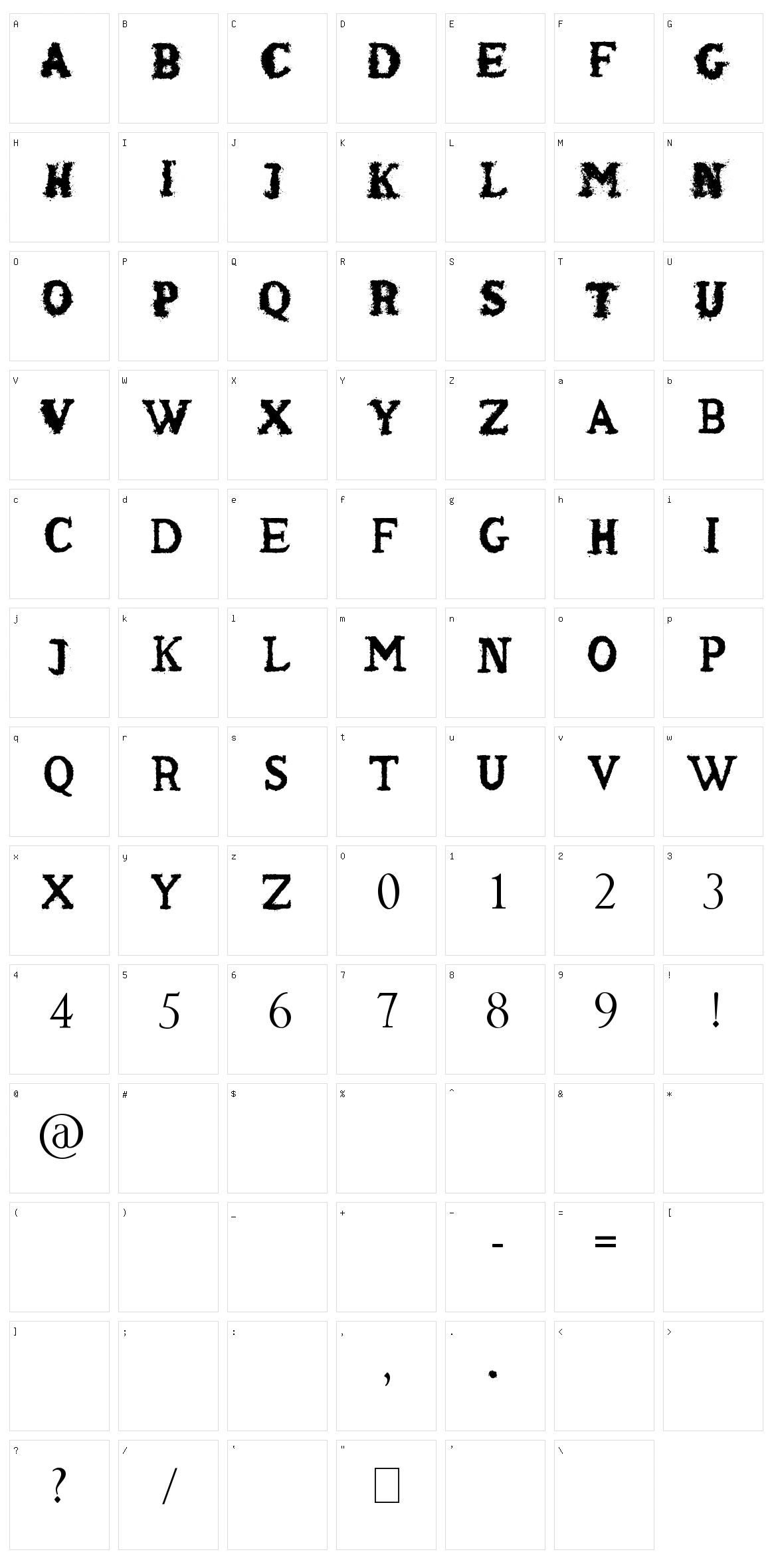
The free font Shaken Coffee is carefully designed by Luca Pianu, showcasing a thoughtful balance of creativity and usability and falls under the Eroded font style. When you download the ZIP file, it contains only 1073 KB of font files, making it lightweight and quick to download. Please review the license details below to understand permitted usage and distribution rights. If license information is not available, we recommend using this font for personal projects only or contacting the author directly for commercial usage permissions.